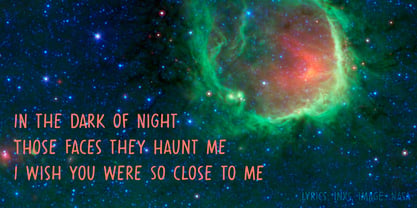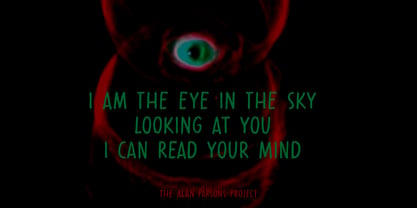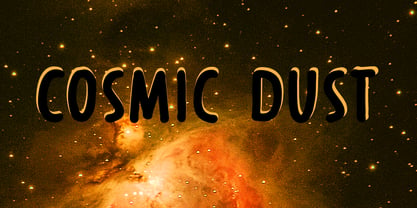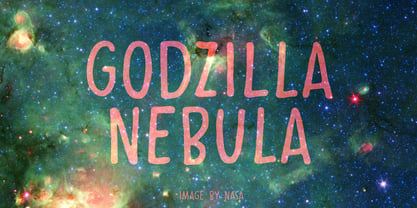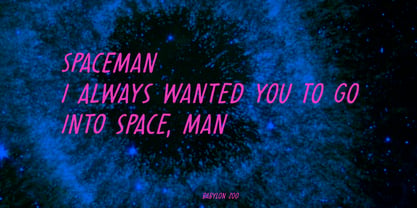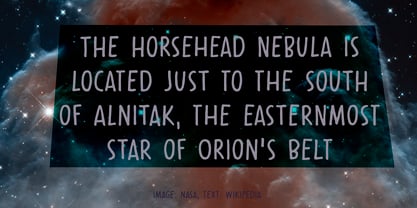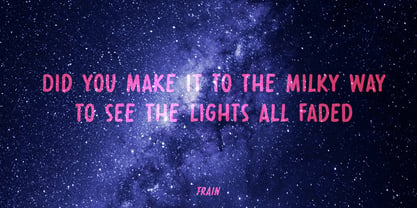
Cosmic Dust Pro
La familia tipográfica Cosmic Dust Pro fue diseñada por David Kerkhoff y publicada por Hanoded. Cosmic Dust Pro contiene 3 estilos. Más información sobre esta familia
Cosmic Dust is dust that occurs in outer space or has fallen onto earth. Cosmic Dust font isn’t a dusty or celestial affair, no, it is a nice and useful font I made with a Sharpie pen. It is a little uneven, a little wobbly, but comes with a lot of character. Use it for your book covers, product packaging or posters.
Cosmic Dust comes with extensive language support and a cool set of alternates.
Hanoded is run by Dutchman David Kerkhoff. His fonts are a mishmash of styles, as he just creates whatever pops into his head. You will find a lot of brush fonts in his collection, as his favourite tools are brushes and Chinese ink, with cartoon style fonts and script fonts complementing his repertoire. Aside from making fonts, David occasionally guides tours in far-flung places, renovates his '30's house and tries reasoning with his wife and (teenage) kids. Not an easy task!